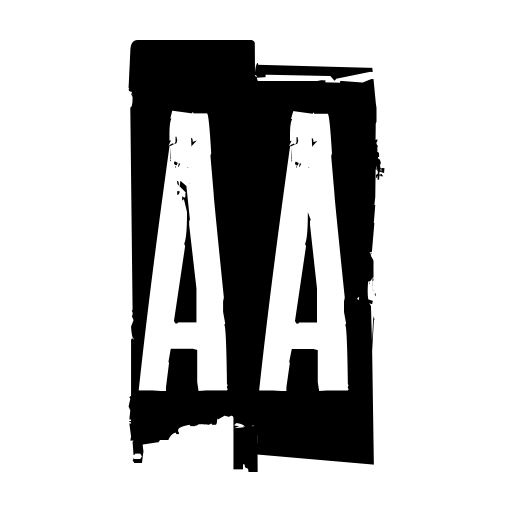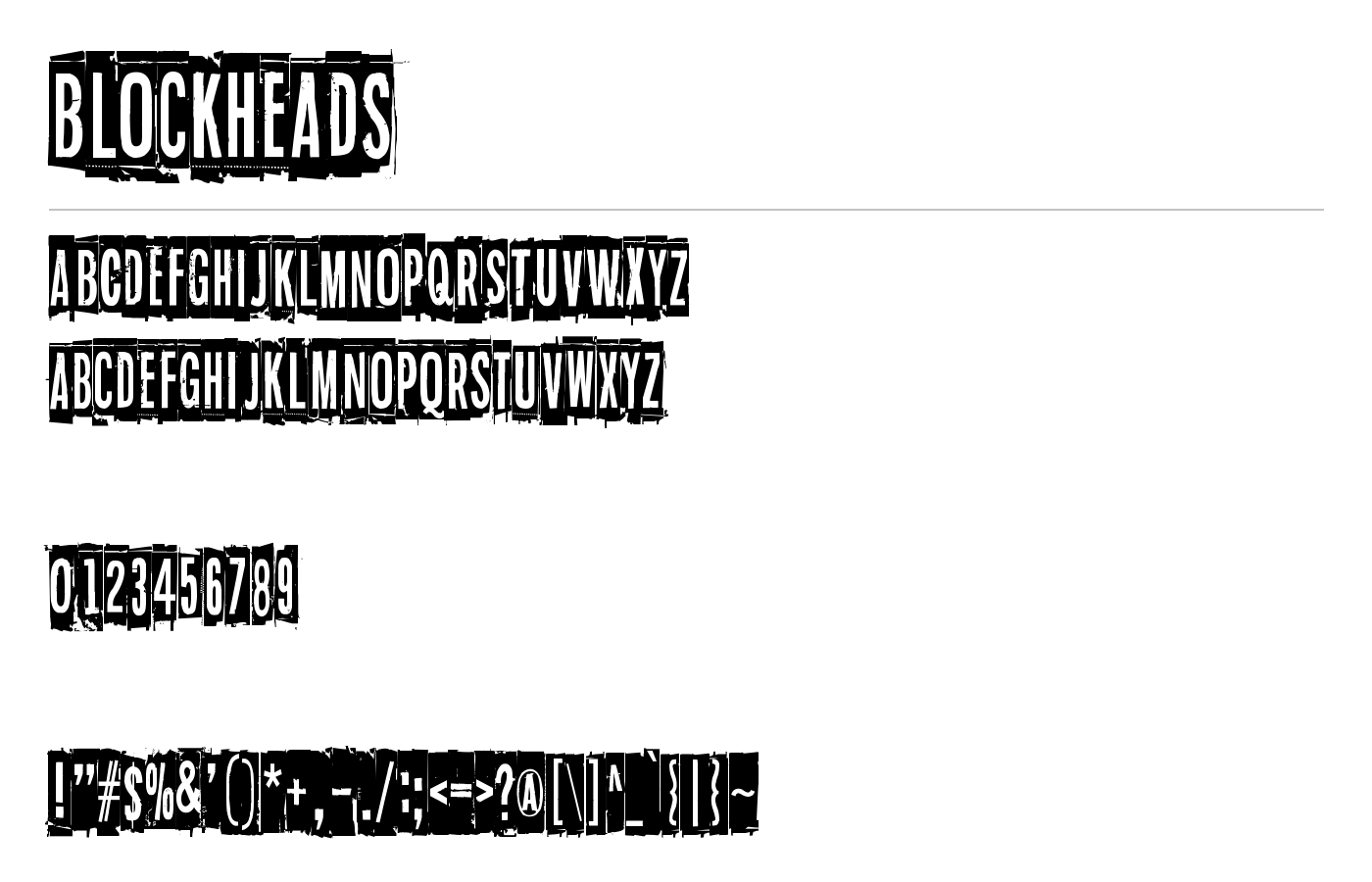
Blockheads is a bold, condensed sans serif font with a distressed, grungy texture that gives it a rugged and rebellious character. Its tall, narrow letterforms and uneven edges create a striking, edgy look ideal for impactful headlines, posters, and designs needing a strong urban or underground vibe. This font works best in creative branding and display uses where it can convey a raw, energetic personality.
Blockheads Font
About Blockheads Font